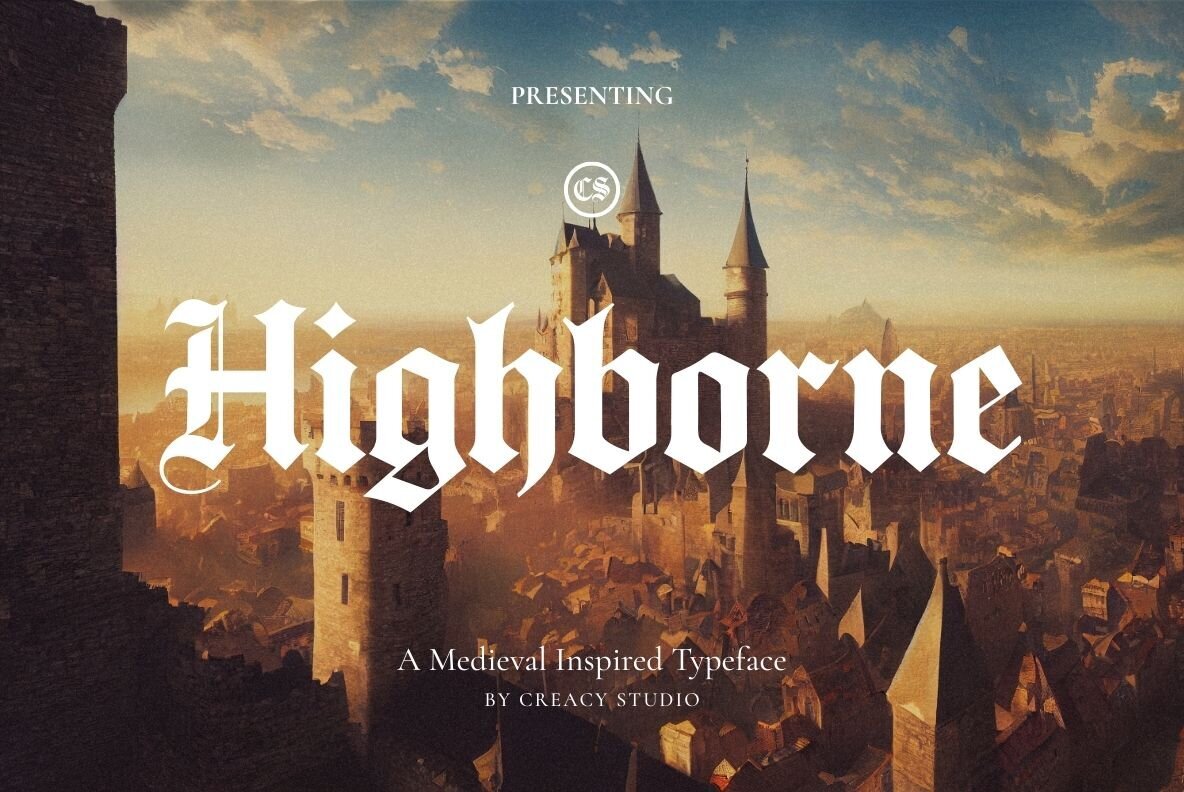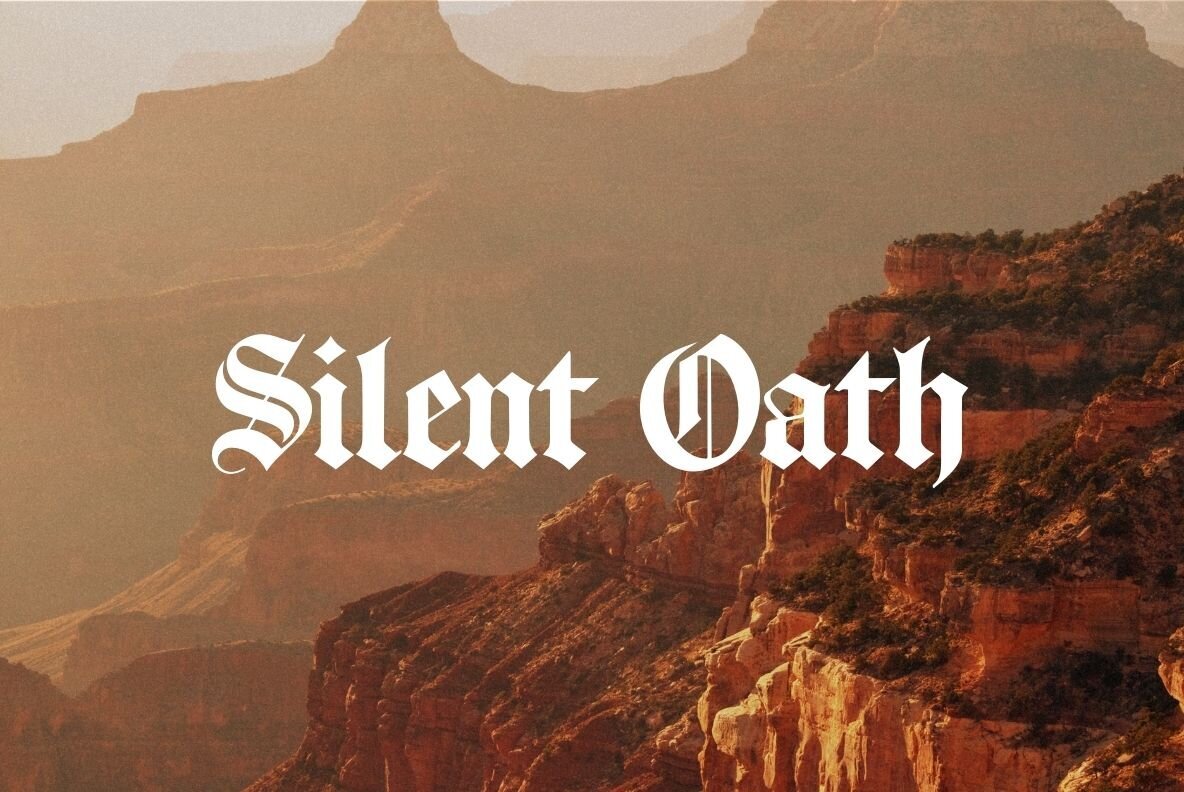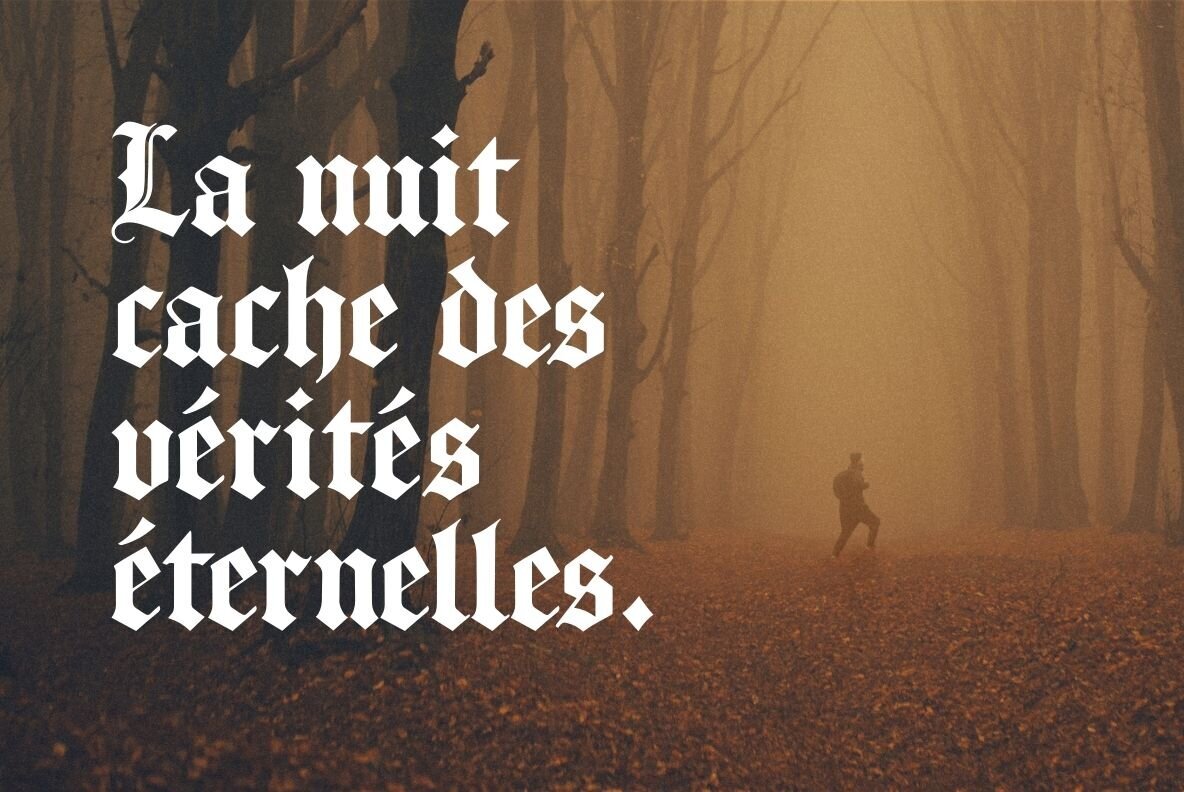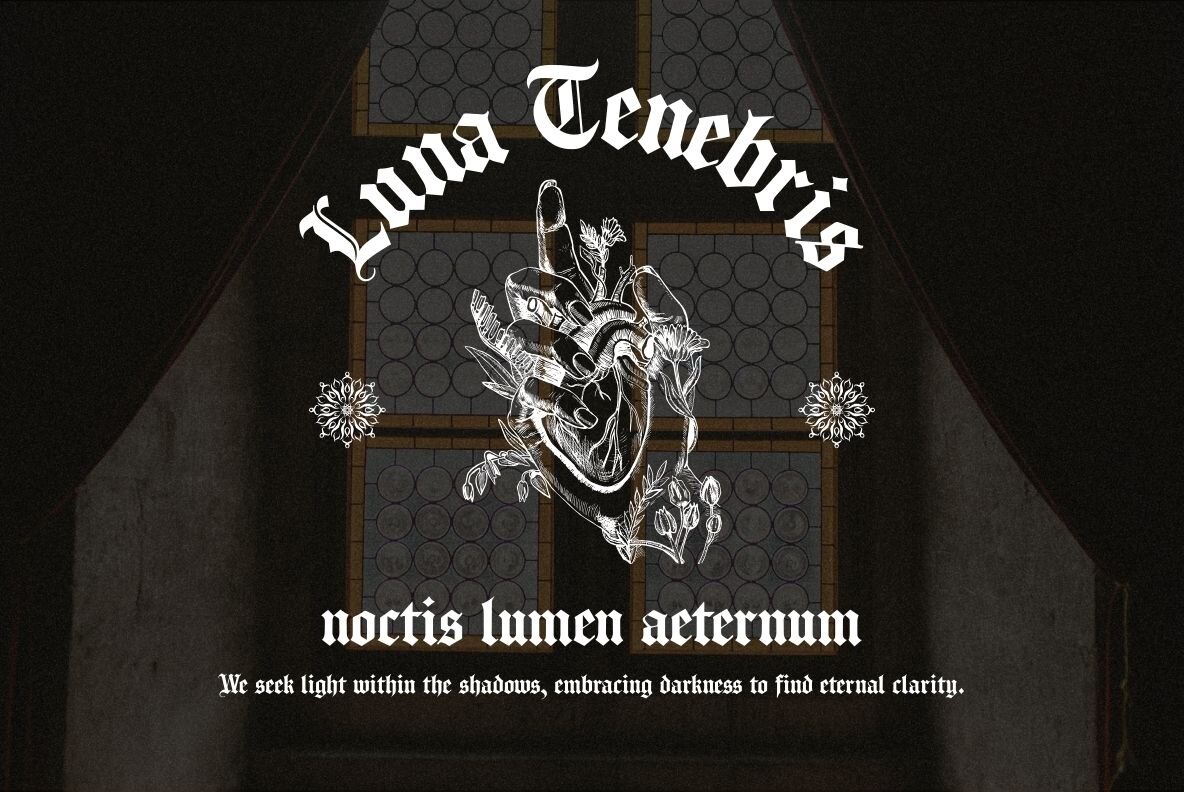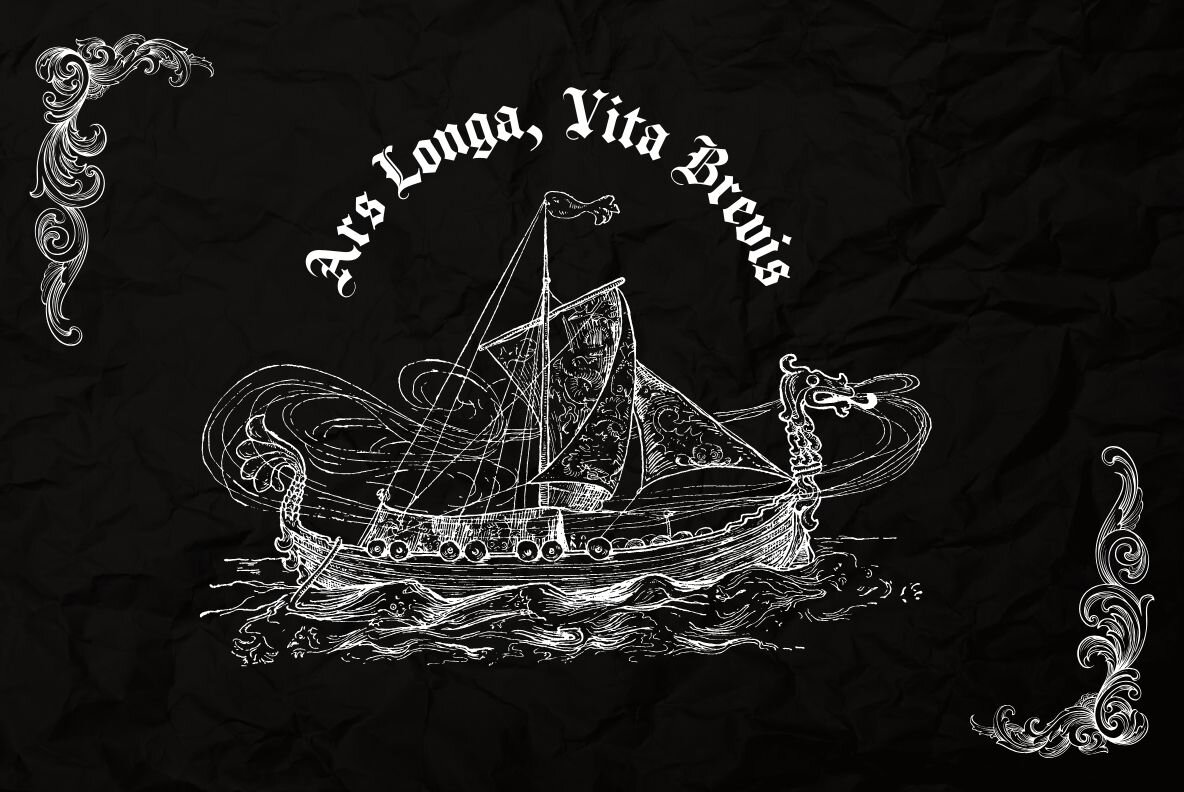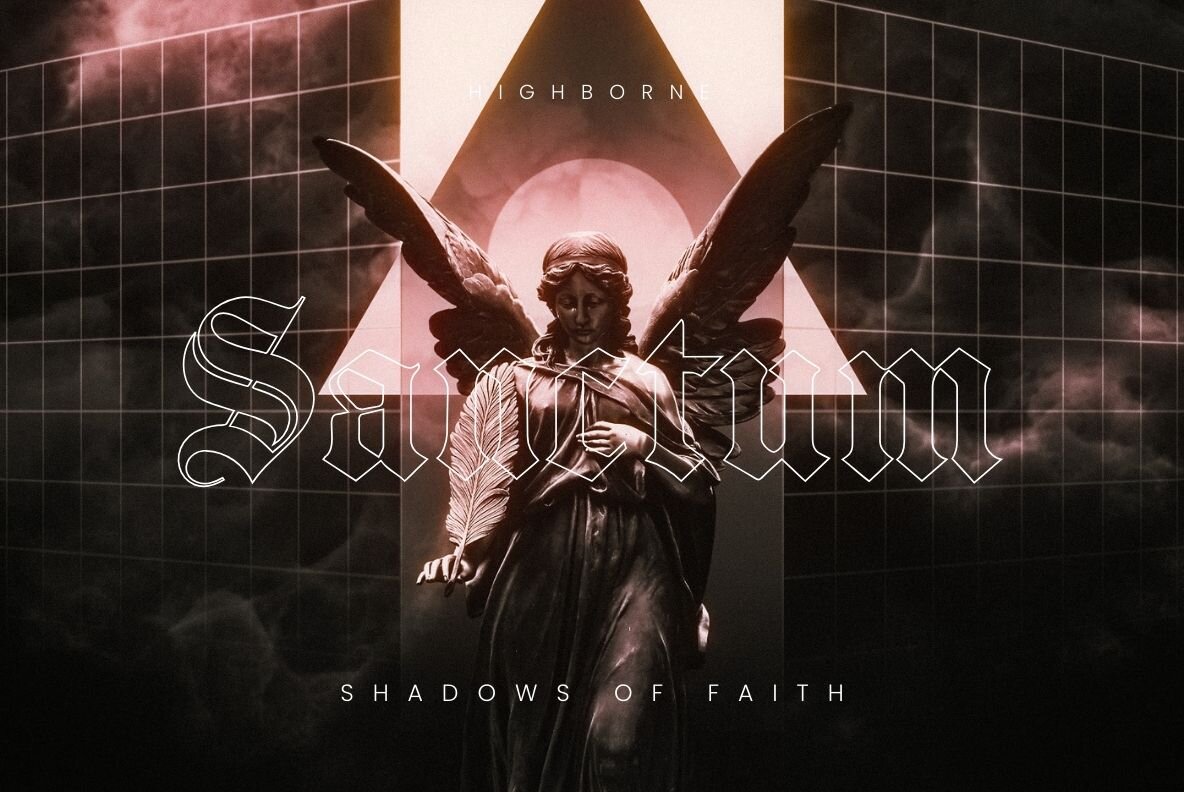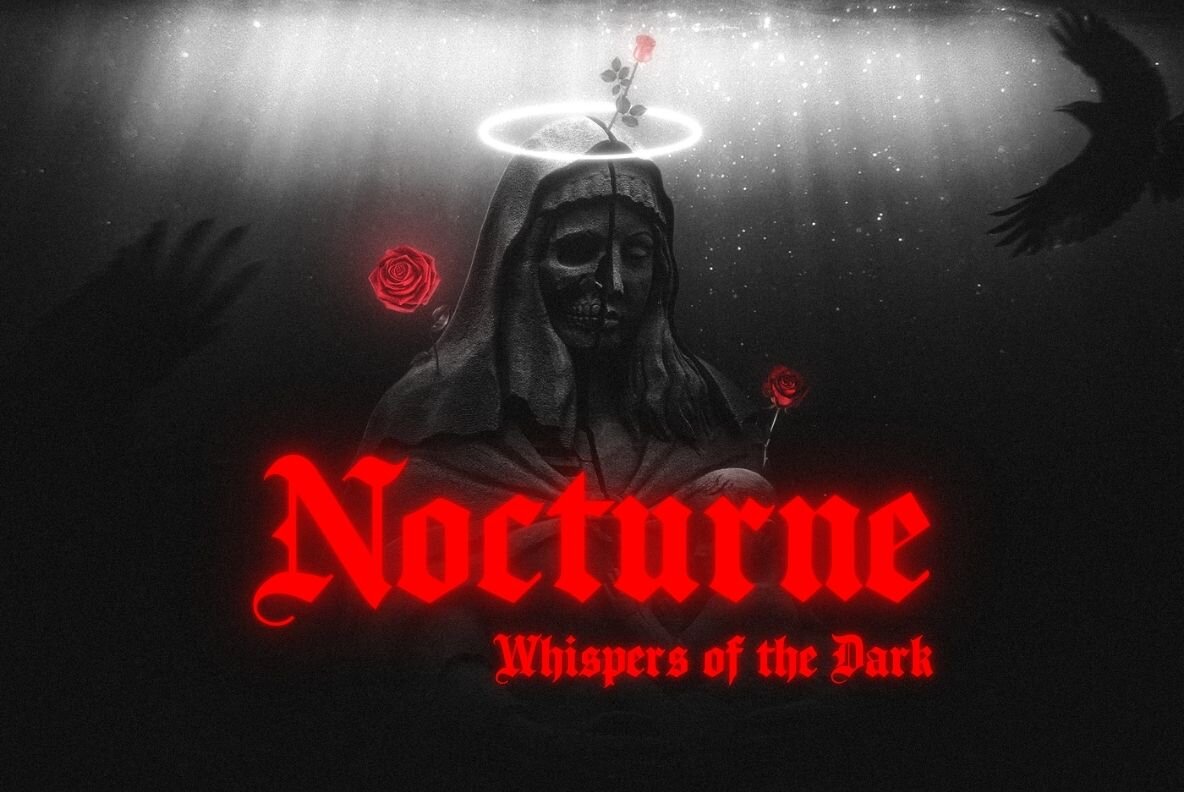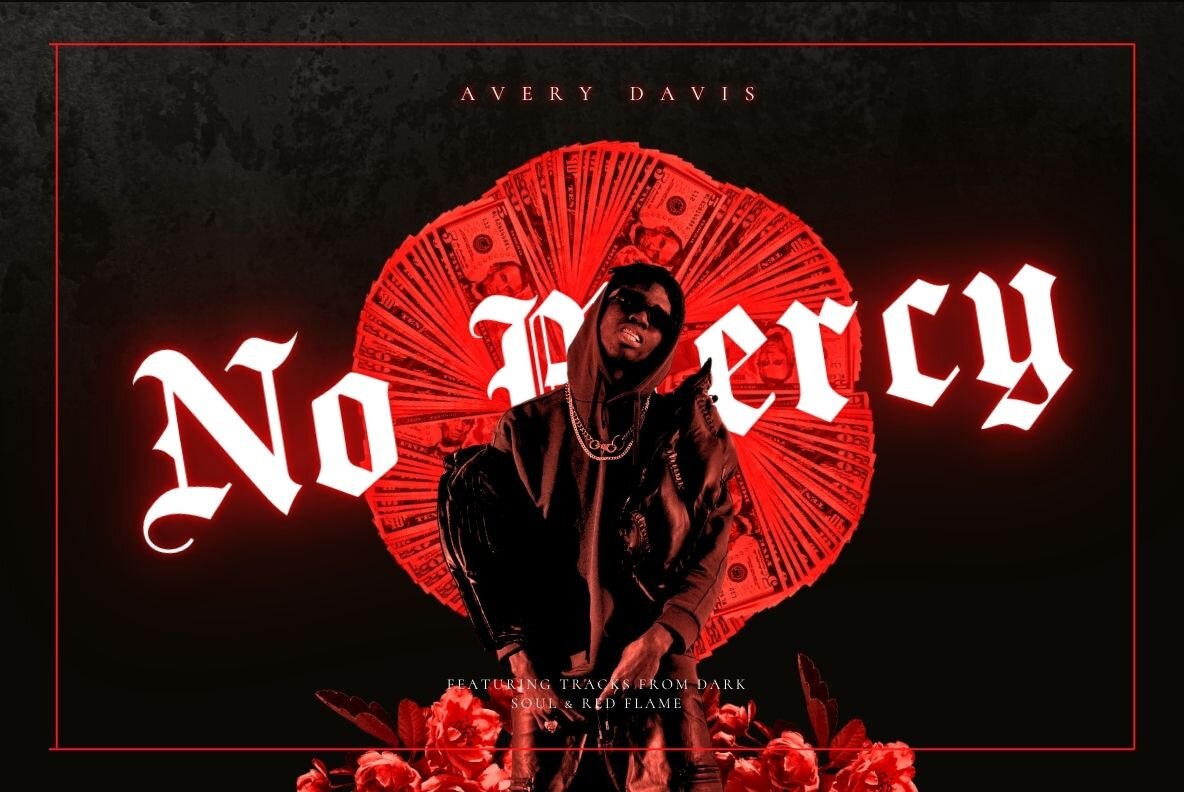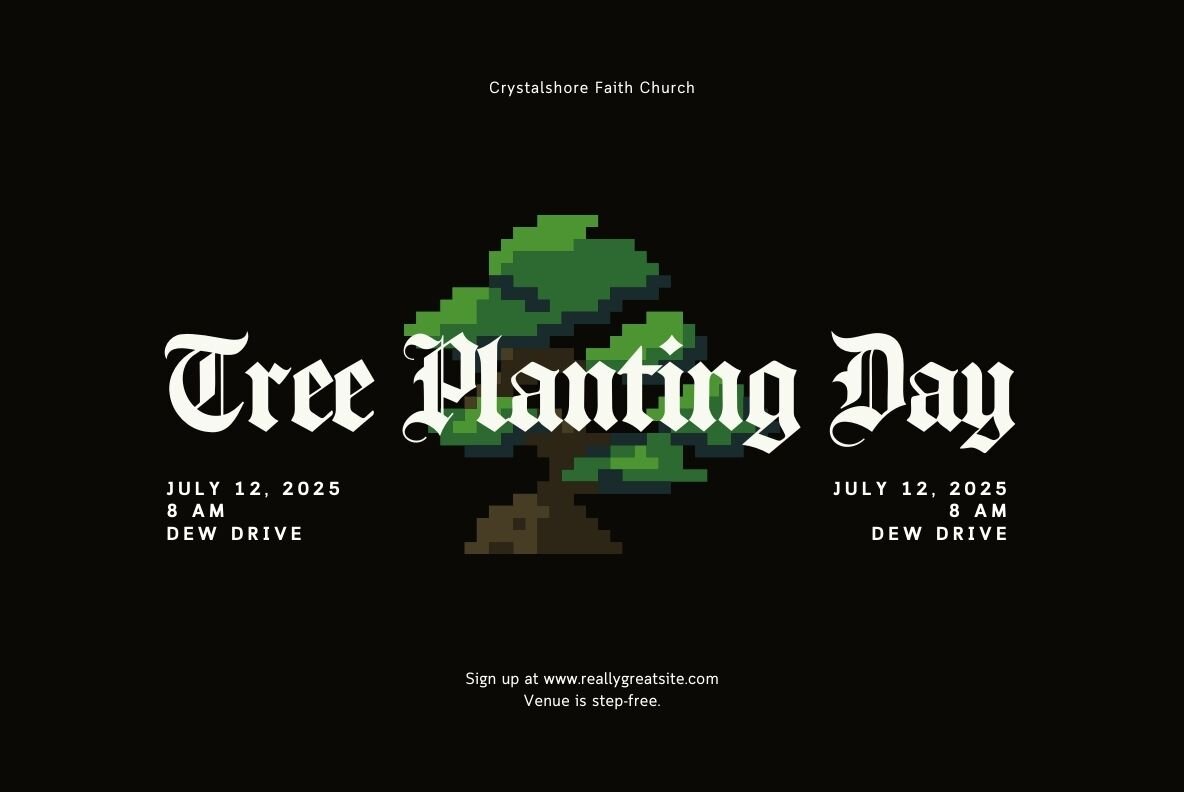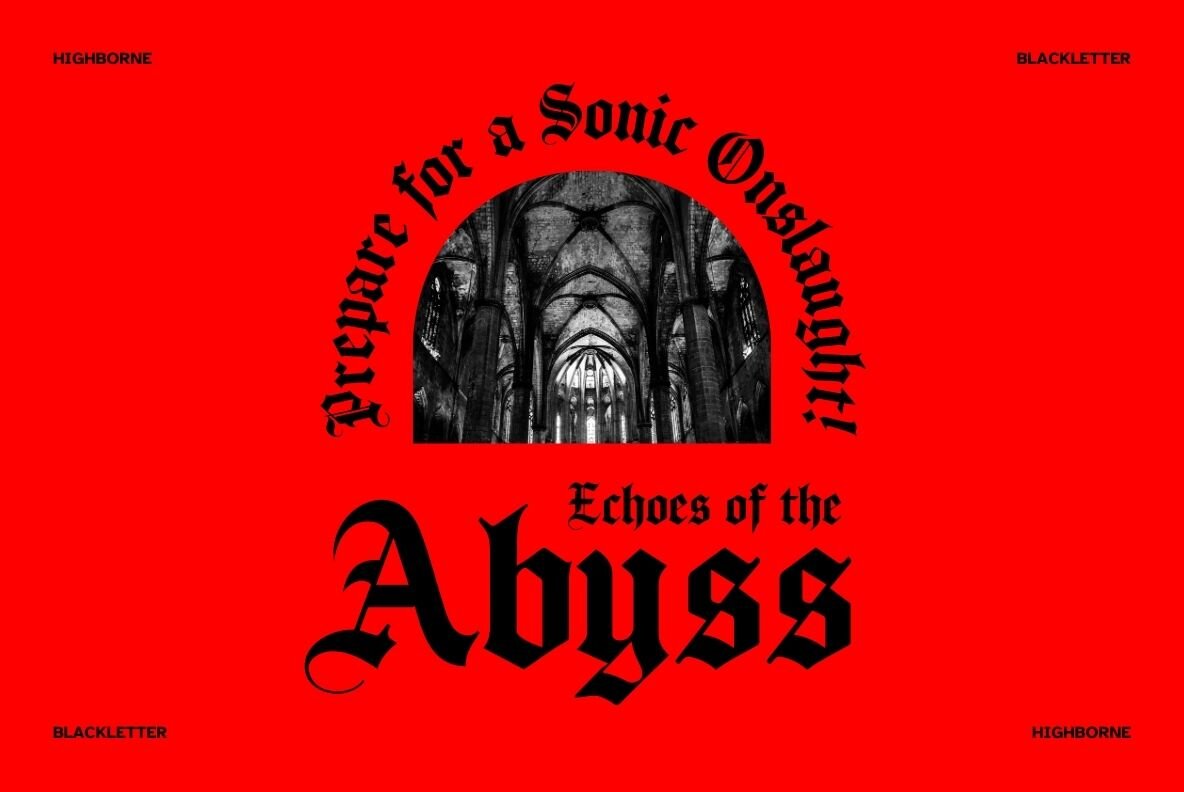
Highborne Font
expand_font Highborne Font Unleash gothic elegance with Highborne: a medieval-inspired blackletter font for designs steeped in mystery and heritage. Blackletter,Gothic,Medieval,Vintage,Old English,Dark,Fantasy,Antiquarian,Historic,Heritage,Germanic,Fractur,Old Style,Textura,Old Style,Tattoo Explore Exceptional Fonts for Digital and Traditional Media Fontpath offers a large variety of fonts for every designer, all at affordable prices and in multiple formats. Browse our best in class fonts today for all your creative needs, you can find everything you need right here at our site! Fonts,sans,sans serif,retro,script,decorative,title,FontPath 20140312040223 Fontpath offers 200,000+ of the most professional fonts found online, start downloading today! Real-Time Font Discovery at Fontpath
Highborne Font